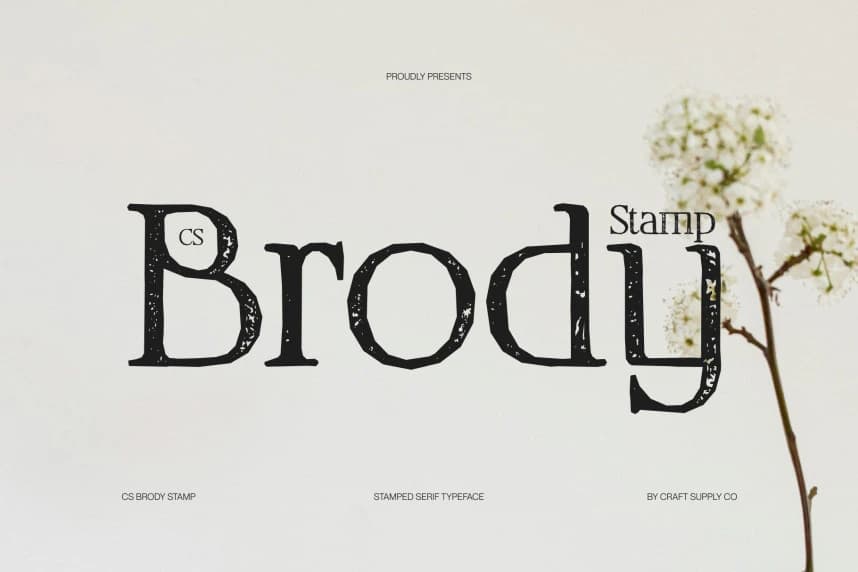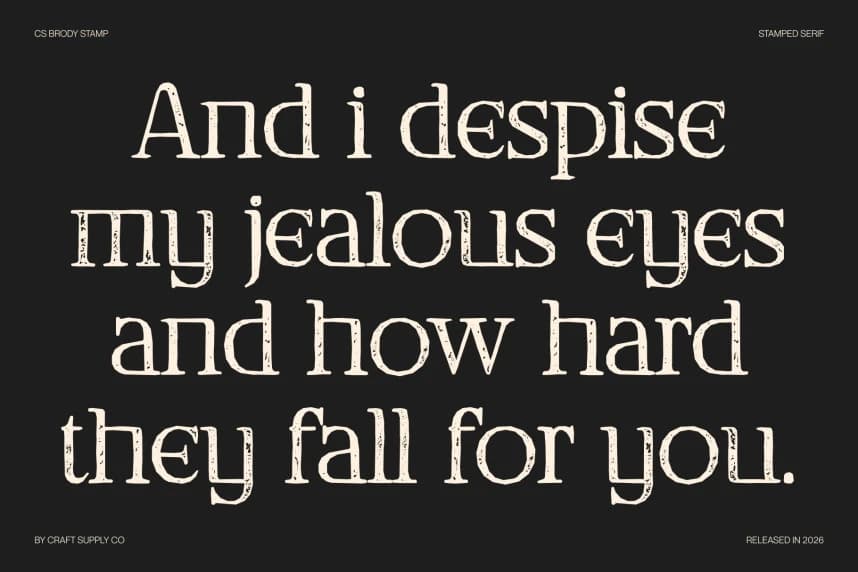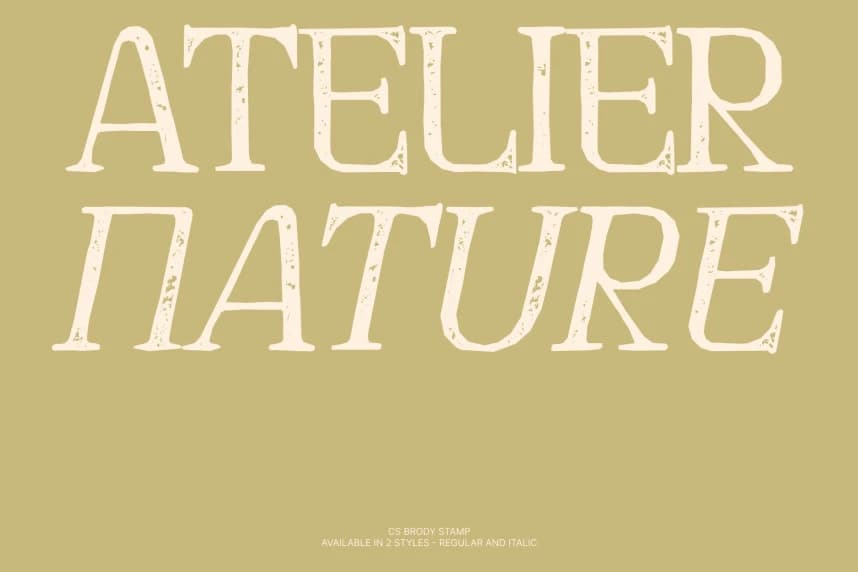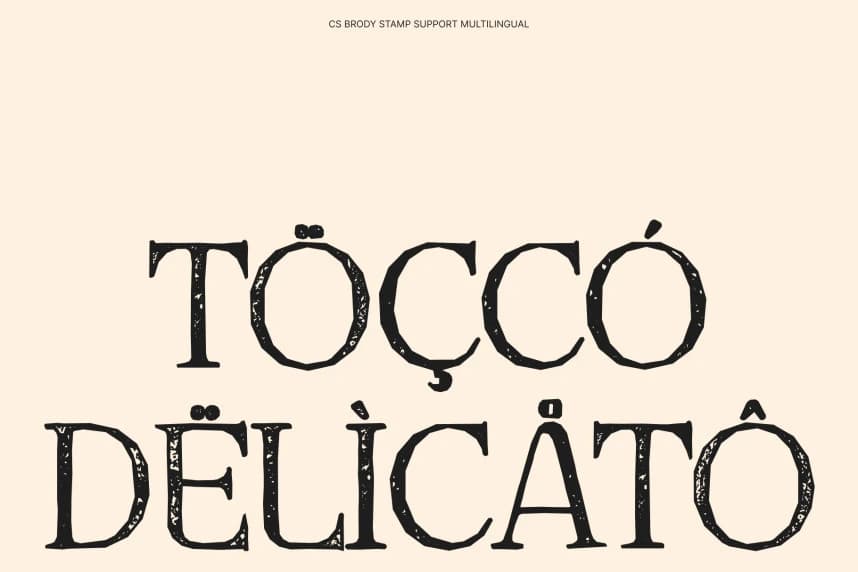
CS Brody Stamp Font
CS Brody Stamp Font – Classic Serif with Textured Modern Elegance Timeless Elegance Meets Minimalist Sophistication. This is a modern serif font that gracefully blends the charm of classic typography with the clarity of contemporary design.